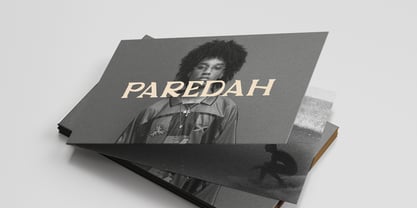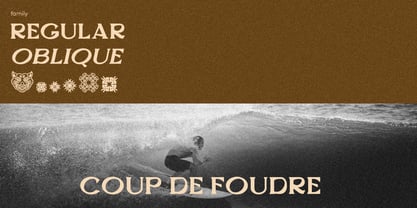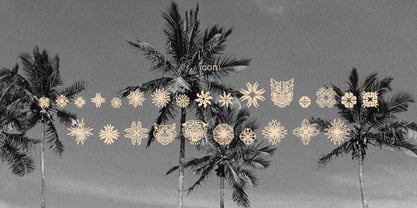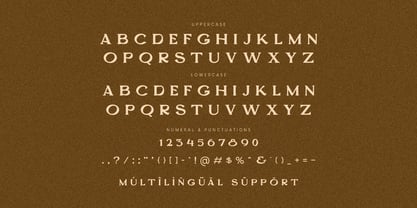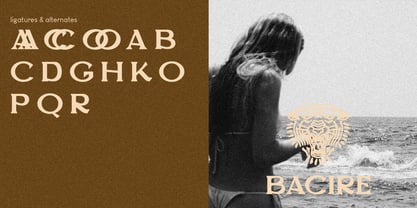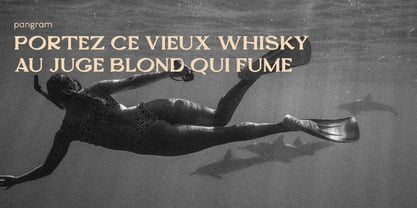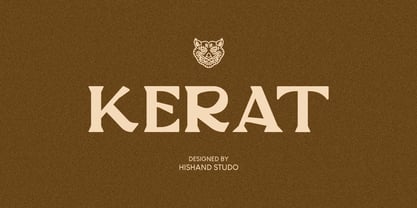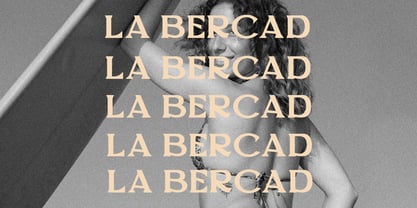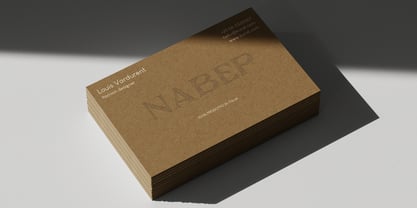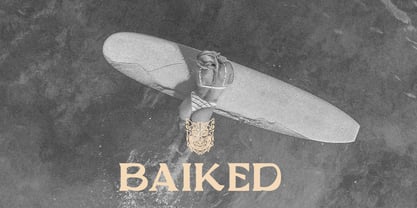
Kerat
par Hishand Studio
La famille de polices Kerat a été conçue par Putu Dody Permana et publiée par Hishand Studio. Kerat contient 3 styles et options de package familial. En savoir plus sur cette famille
Kerat is a serif display typeface that draws its character from organic textures and quiet, natural rhythms. Its letterforms carry a refined thick-thin contrast, paired with slender, gently bracketed serifs that lend an editorial elegance without feeling cold or overly geometric. Curves breathe with subtle modulation, echoing the fluid lines found in nature, while the structure stays disciplined enough for confident, large-scale use.
Designed for brands that want to feel grounded, earthy, and considered, Kerat suits packaging, wellness and botanical branding, artisanal spirits, editorial headlines, and premium product labels. It sits comfortably between vintage warmth and modern restraint, offering a voice that feels handcrafted yet polished.
Every letter is built with intentional detail, from the taper of its serifs to the balance of its counters, making Kerat a versatile choice for designers seeking a typeface with texture, depth, and a natural sense of authenticity. Complete with :
- ligatures
- alternates
- regular
- oblique
- icon
- kerning
- multilingual support